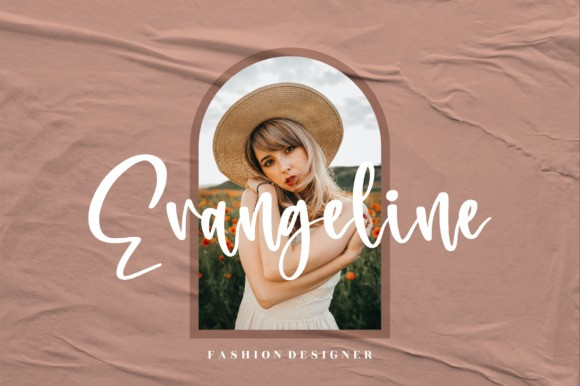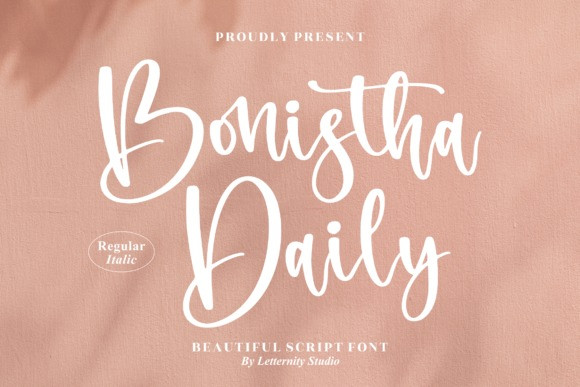
Bonistha Daily Font
Bonistha Daily Font is a beautiful script font suitable for any projects such as logos, branding projects, homeware designs, product packaging, mugs, quotes, posters, shopping bags, t-shirts, book covers, name cards, invitation cards, greeting cards, labels, photography, watermark, special events, and all your other lovely projects that need a beautiful script taste.